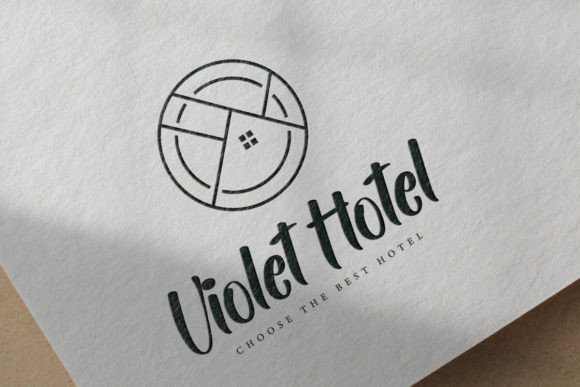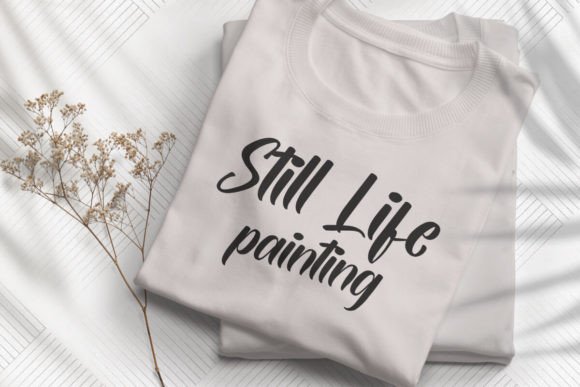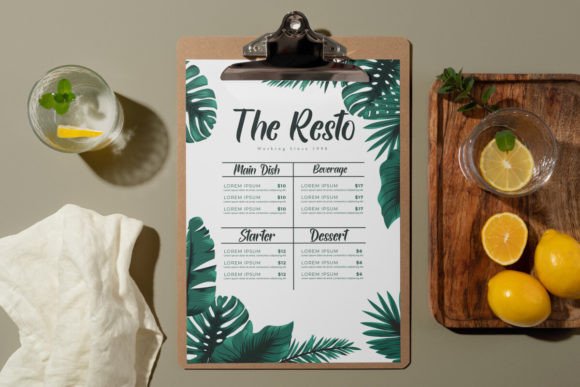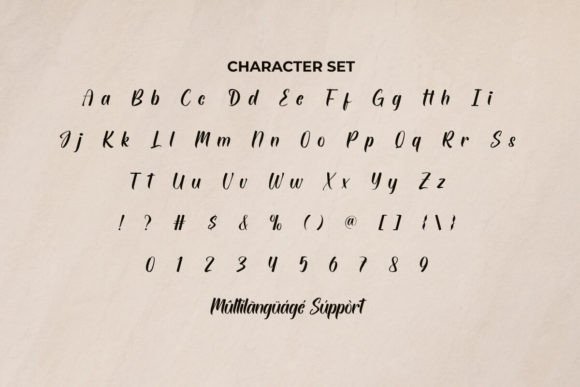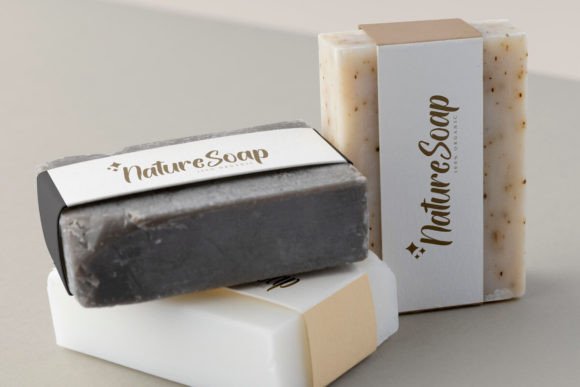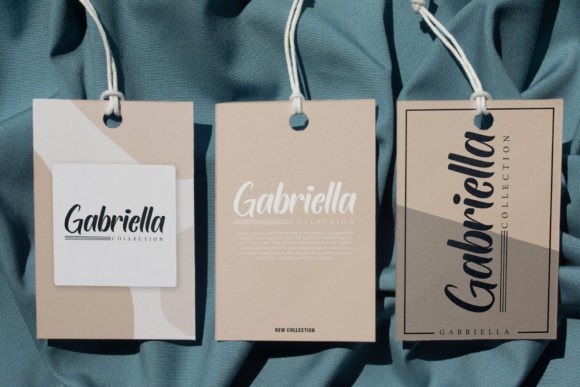
Introduction to Reminder Caution Font
As you sit down to plan your next creative project, have you ever felt overwhelmed by the endless options available to you? The blank page stares back, waiting for inspiration to strike. For many designers, the key to unlocking that perfect look lies in the perfect font. Enter the Reminder Caution Font, a casual calligraphy script font that’s as easy on the eyes as it is to read.
This high-quality design resource boasts a unique feature: varying letter thickness that makes it a standout in any industry. Whether you’re designing for an art gallery, boutique, or spa salon, the Reminder Caution Font is sure to add a touch of elegance and sophistication to your work. And the best part? It’s available for free download, making it a valuable addition to any designer’s toolkit.
Key Features of Reminder Caution Font
- High-quality design resource ideal for creative projects, such as warning signs or alerts.
- Unique characteristics include bold, attention-grabbing typography and a warning-inspired aesthetic.
- Designed to be a versatile and effective warning font, ideal for use in creative projects where caution is necessary.
Honest Review: Reminder Caution Font
I recently had the opportunity to work with the Reminder Caution Font, and I must say it’s been a valuable addition to my design resource library. This high-quality font is perfect for any creative project that requires a sense of urgency or caution.
Here are some of the things that I think work well with this font:
- ✨ Unique and bold style that grabs attention
- ✨ Perfect for use on a transparent background, allowing the design to shine through
- ⚠️ Limited character set, which may not be ideal for longer texts
- ⚠️ May not be suitable for use in smaller font sizes, as it can become difficult to read
Overall, I’m impressed with the Reminder Caution Font and would definitely recommend it to designers looking for a high-quality, attention-grabbing font for their next project.
Reminder Caution Font
Reminder Caution Font is a high-quality design resource perfect for adding a touch of caution to your creative project. This free download features a transparent background, allowing for seamless integration with your design.
Tips for Getting the Most Out of Reminder Caution Font
Use Reminder Caution Font to draw attention to important information, such as warnings or cautions. You can also use it to add a touch of caution to your branding or marketing materials.
Reminder Caution Font is perfect for use in safety warnings, product labels, and marketing materials. It’s also a great resource for designers who need to add a touch of caution to their creative projects.